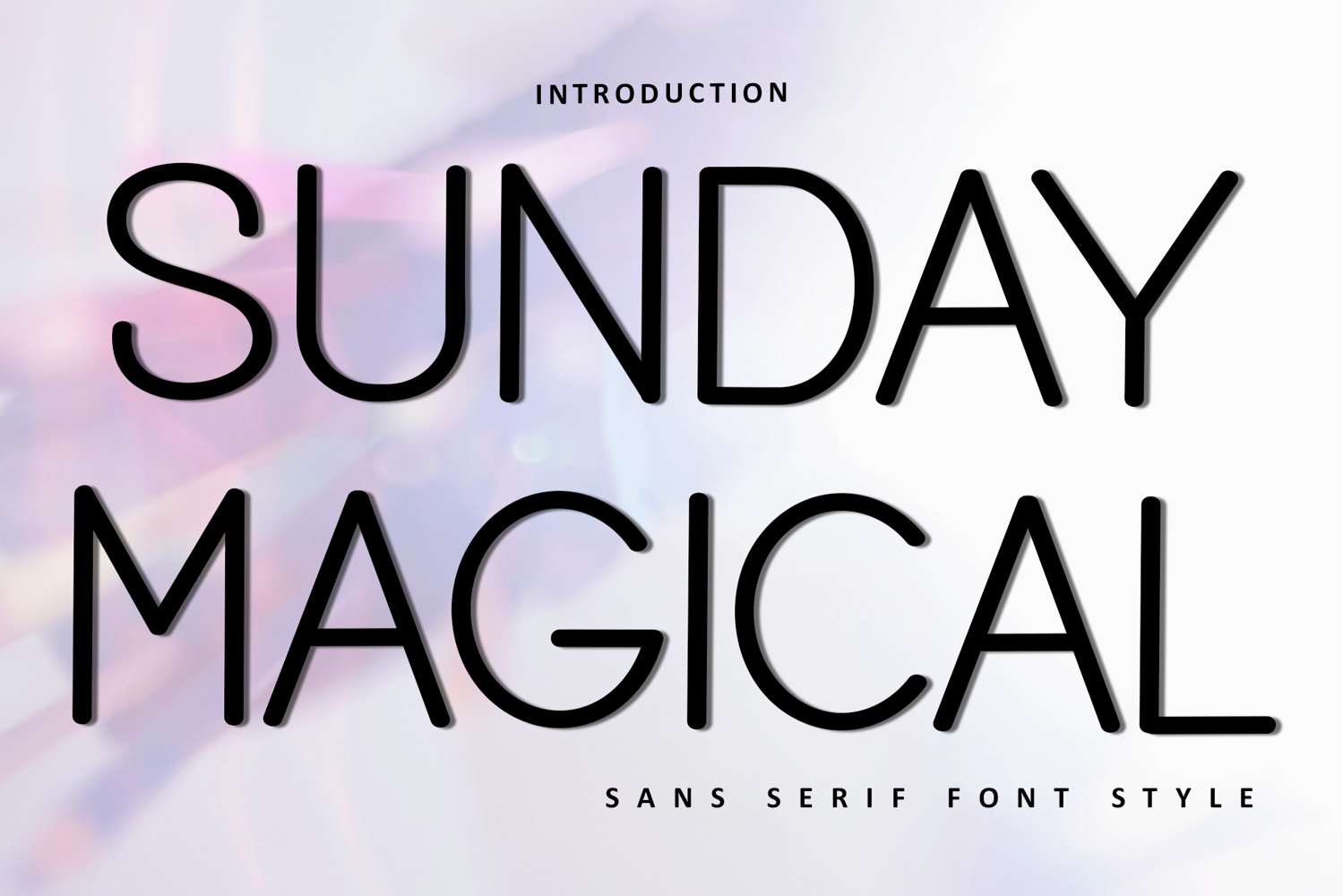
Sunday Magical
Sunday Magical is a beautiful and eye-catching font designed with a soft, unique touch. Its distinctive strokes give it a special character, making it meaningful and versatile for future use. With various characters, it’s perfect for design projects, crafts, and other creative works.